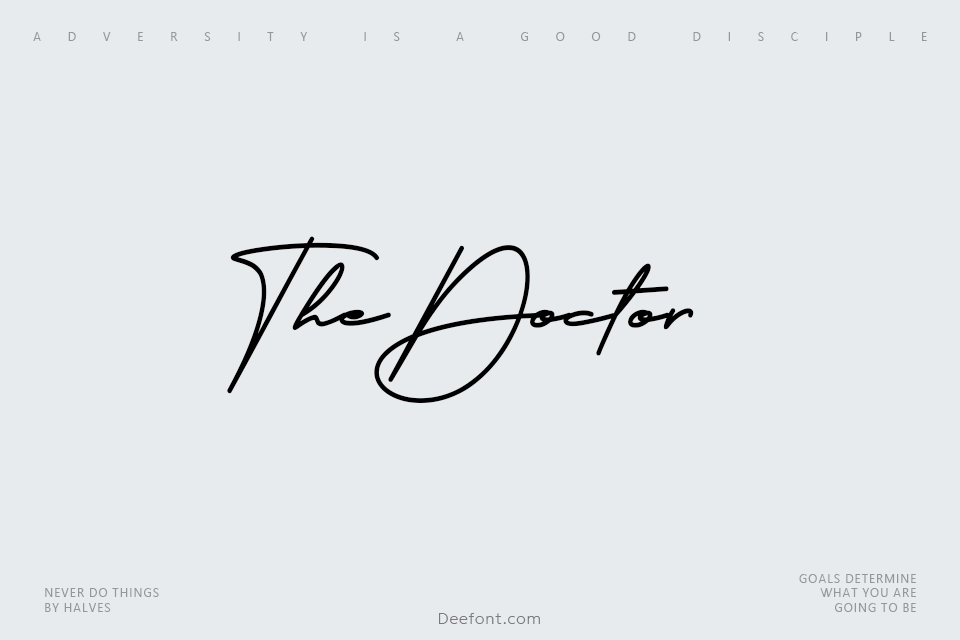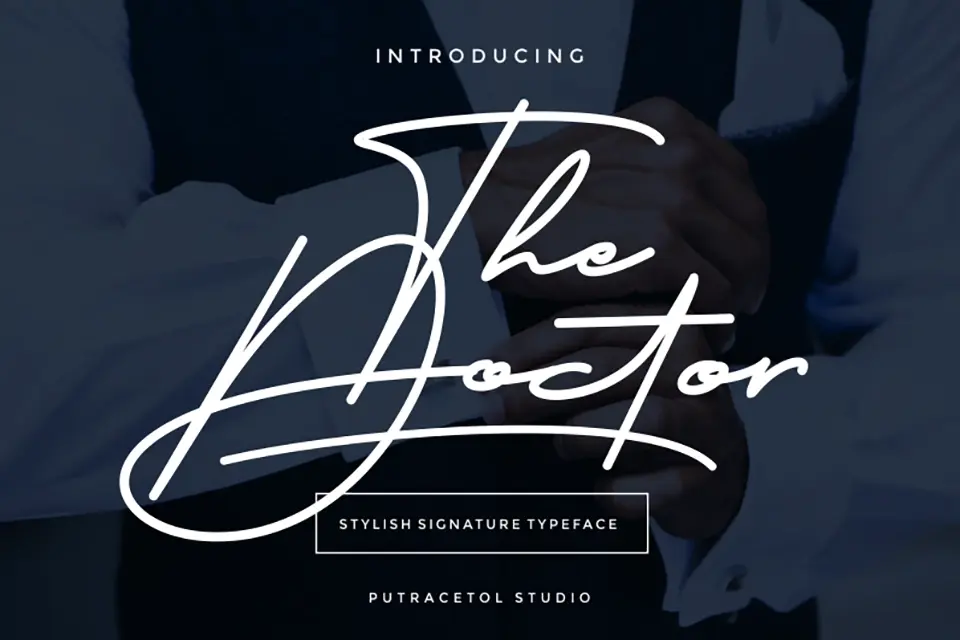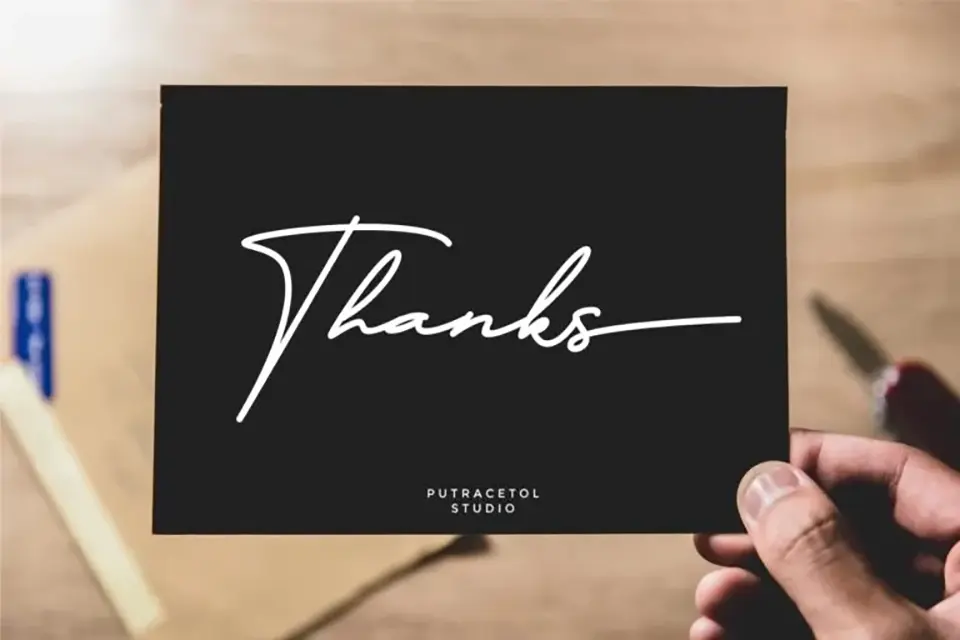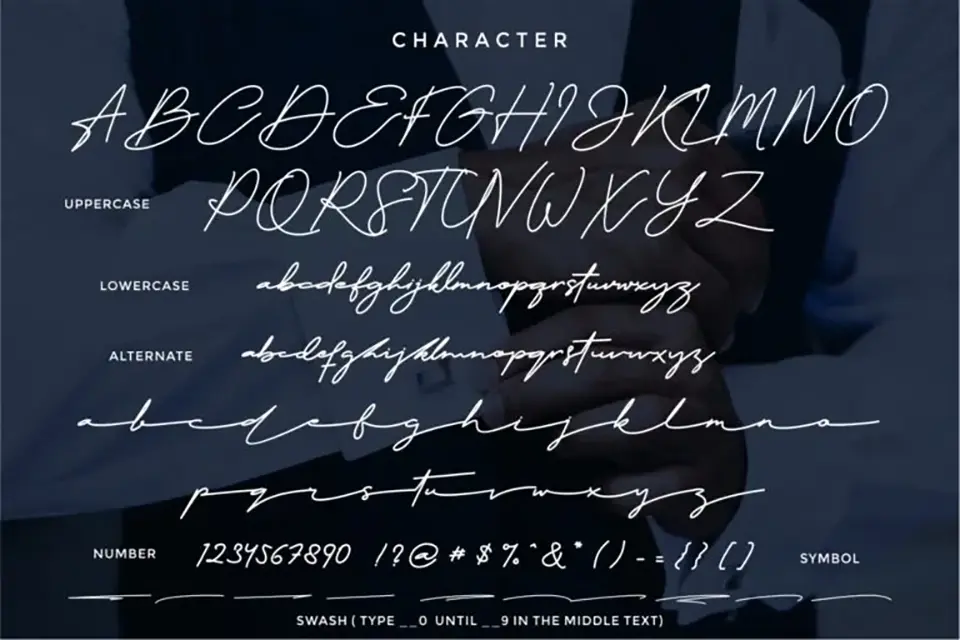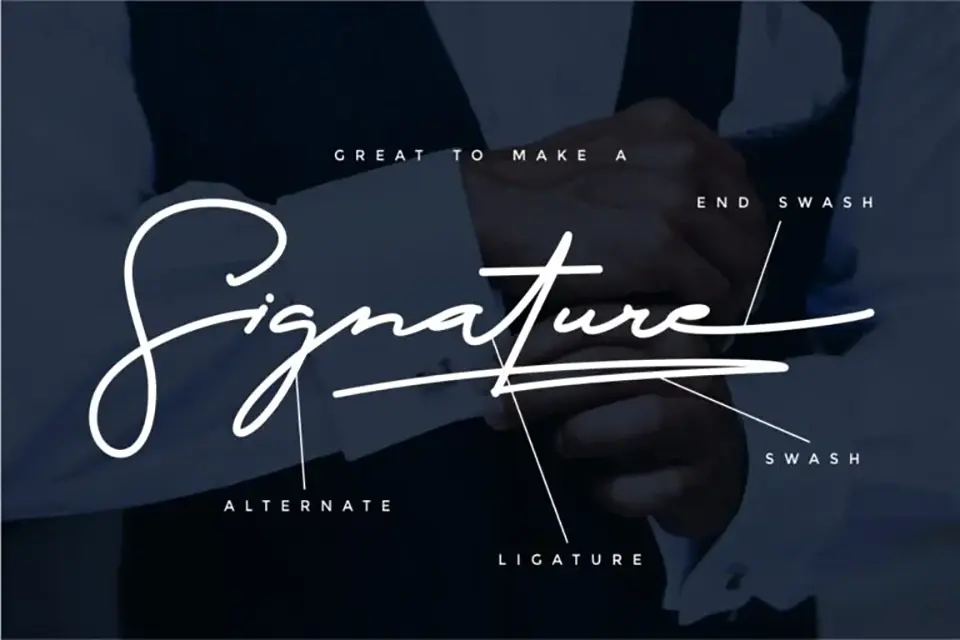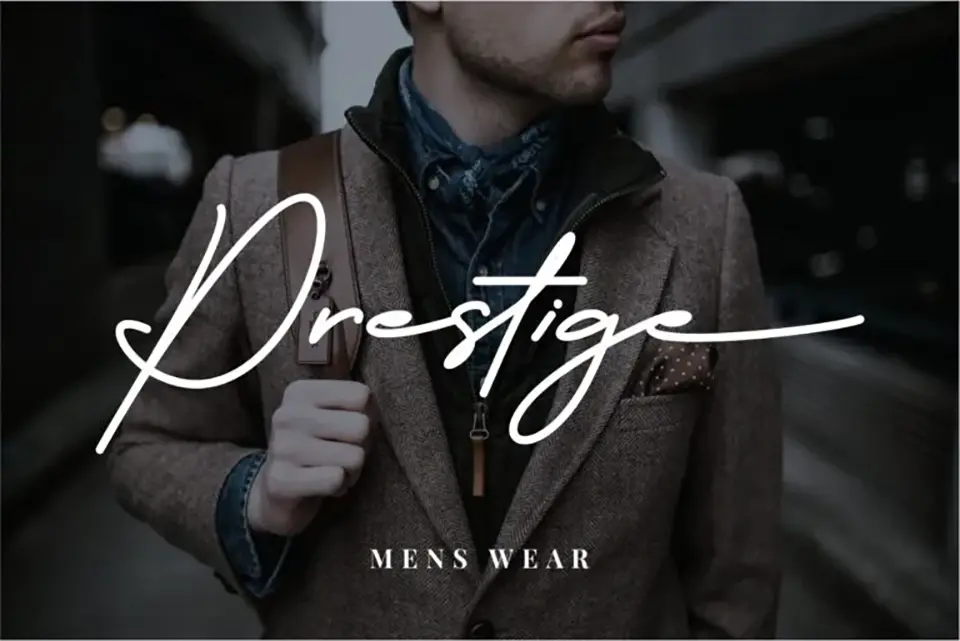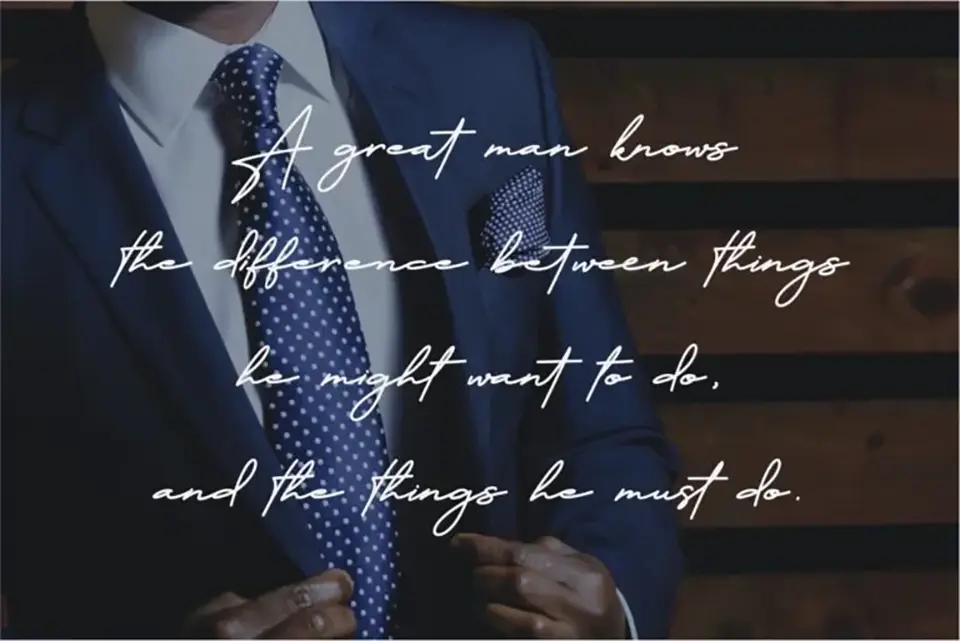
The Doctor Font
The Doctor is an elegant handwritten signature font that combines natural, classy, and stylish flow. Designed for professional and creative applications, it excels in signatures, headings, branding, invitations, labels, and poster designs. The font features complete uppercase, lowercase, alternate glyphs, numbers, punctuation, and symbols, making it versatile for social media graphics, product packaging, and merchandise design. Its distinctive script style brings sophistication to any typography project.